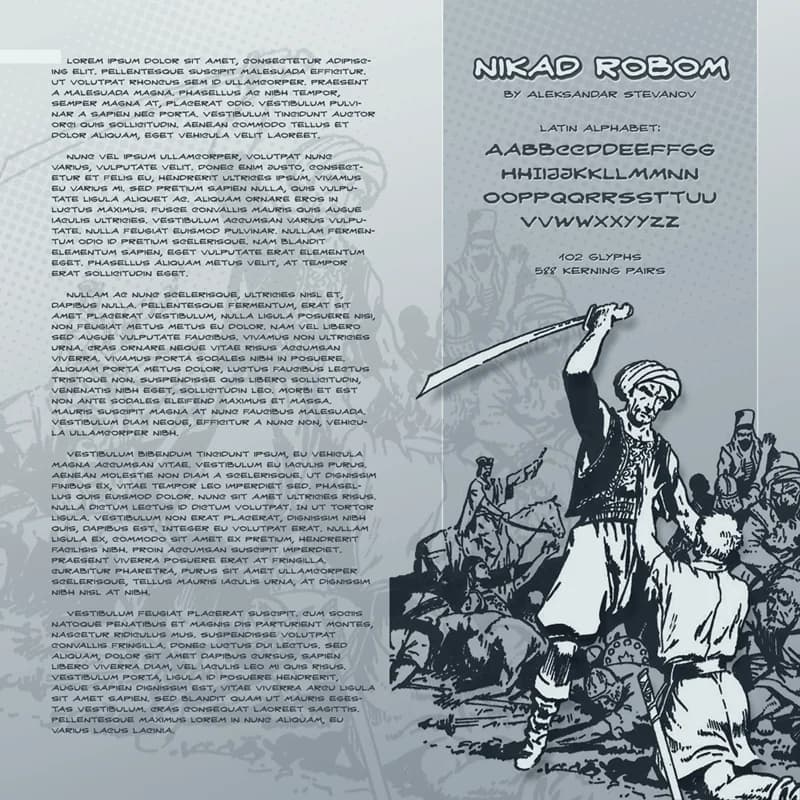
About Nikad Robom Font
Nikad Robom by astevanov is a comic-inspired script that brings dynamic energy and playful character to design work requiring authentic hand-drawn flair. The font's lively, expressive letterforms capture the spirit of classic comic book lettering and graphic novel typography, making it particularly well-suited for creating visual impact across multiple formats.
This versatile typeface excels in projects where casual humor and illustration-style personality intersect with functional design. Nikad Robom is ideal for graphic novel titles that need distinctive voice and movement, comic convention posters demanding bold visual presence, and cartoon-style packaging design that benefits from hand-lettered authenticity. The font also works beautifully for playful event invitations where a character-driven aesthetic enhances the overall appeal and tone.
The inherent energy and expressiveness of this comic-inspired script translates effectively across both digital and print applications without sacrificing legibility or professional presentation. Whether you're creating comic book merchandise design, designing eye-catching promotional materials with illustrated flair, or developing branded content that requires a distinctive, approachable character, Nikad Robom delivers authentic hand-lettered charm. The font's versatility makes it a valuable addition to any designer's collection, particularly for creative work requiring a voice that feels both accessible and distinctly illustrated. Get Nikad Robom on Creative Fabrica to infuse your next project with genuine comic-style character and visual dynamism.
Nikad Robom Font is a script font that shines as a display or heading face. Pair it with a clean sans-serif or serif font for body text β the contrast creates a clear hierarchy while the two styles stay balanced and easy to read.
Nikad Robom Font
by astevanov